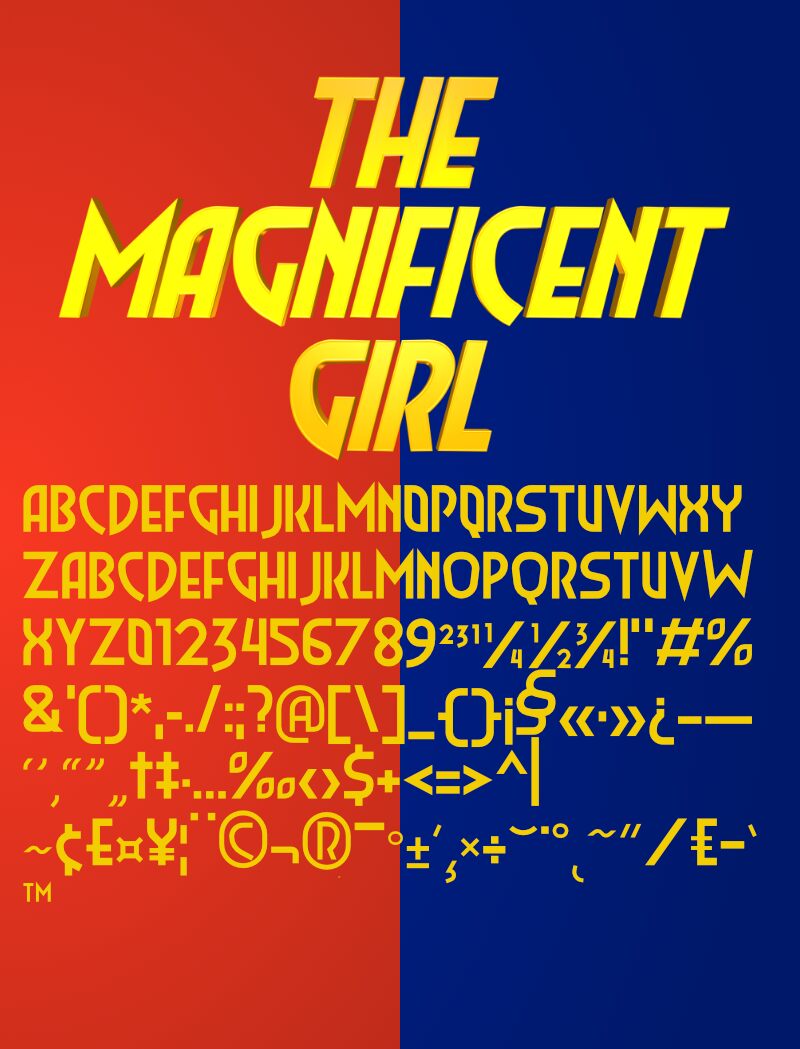
The Magnificent Girl Light Italic, designed by Hilton Santos, is a stunning display font that exudes a retro charm. With its semi-light weight and condensed width, this font is perfect for projects that require an elegant and vintage touch. Whether you're designing eye-catching logos, creating striking headlines for magazines or posters, or even crafting beautiful invitations and stationary, The Magnificent Girl Light Italic will add a touch of sophistication to your designs. Let your creativity run wild with this versatile typeface and captivate your audience with its timeless appeal.
With 8 fonts in its total, 3 a weight family and 3 deriving an italic version of this family, two of the eight do not suit the other 6 for not being the same category but they belong to the same family. The six categorizes in art deco style, and the other two in the abstract and handwritten.
It's an Art Deco, but it can also somewhat resemble Sans-Serif in that it doesn't have serifs.